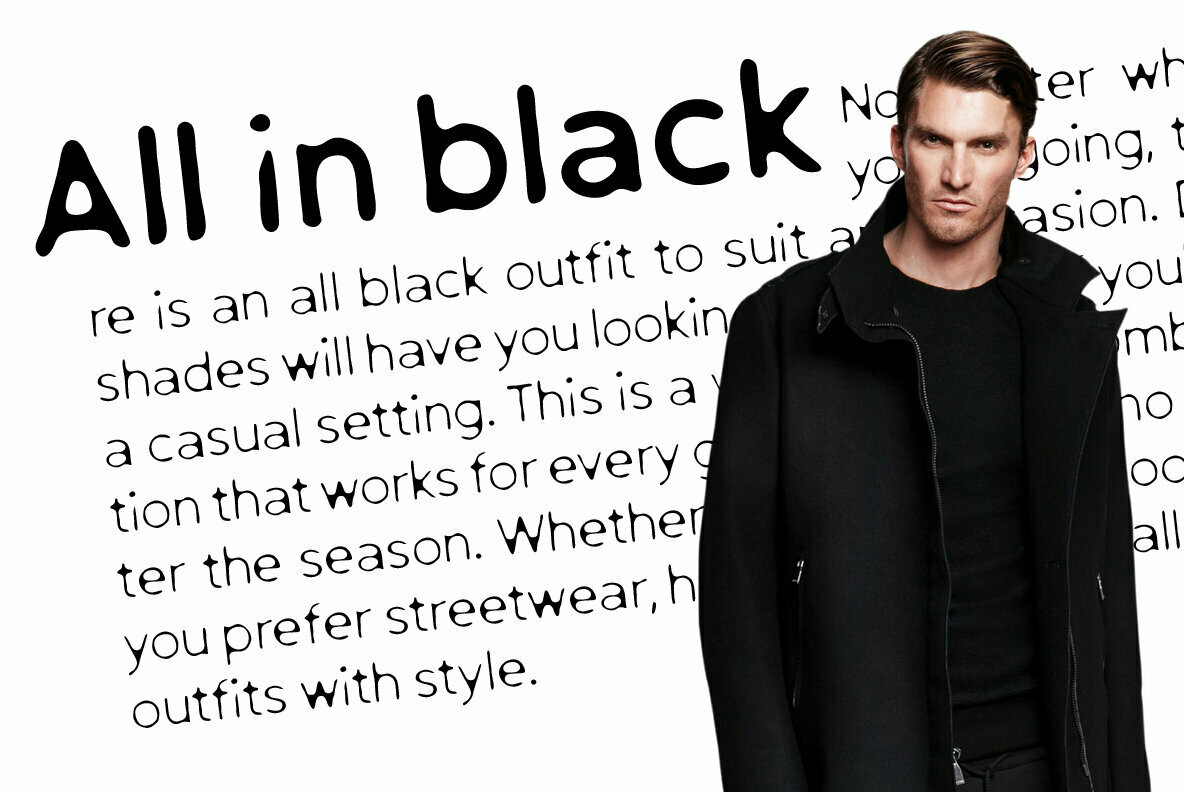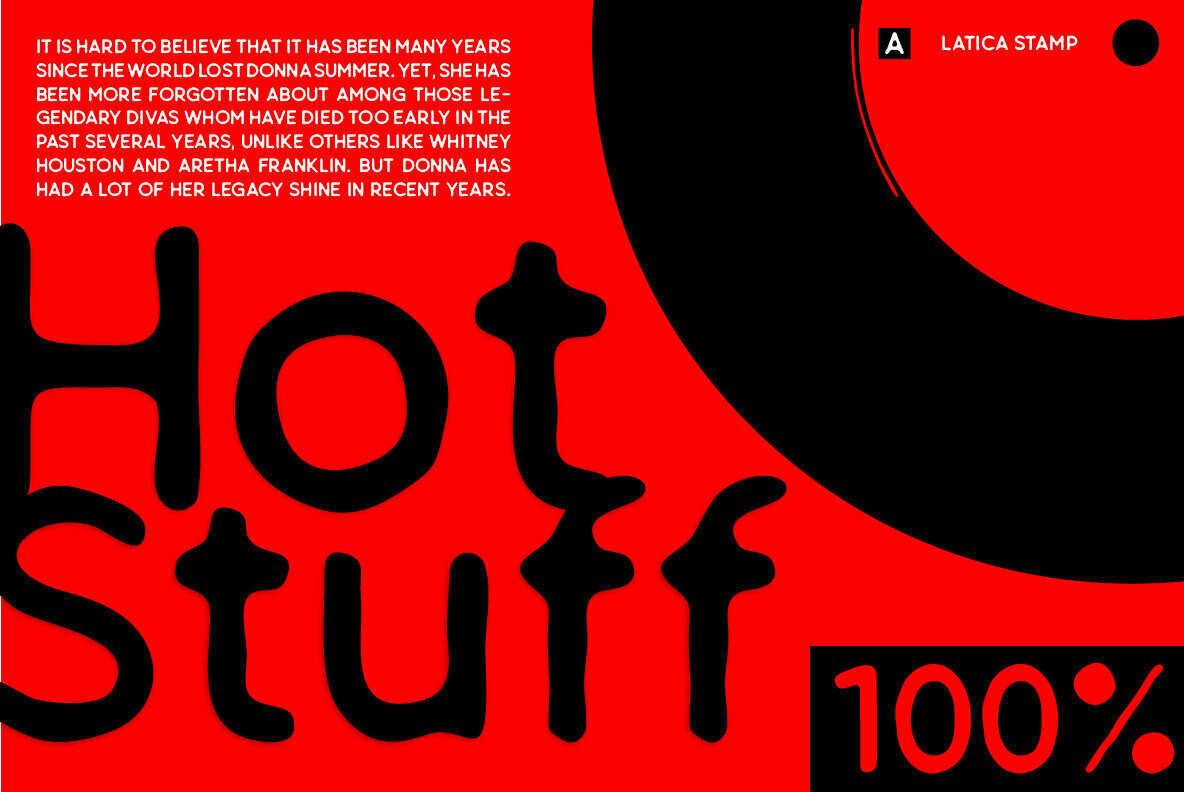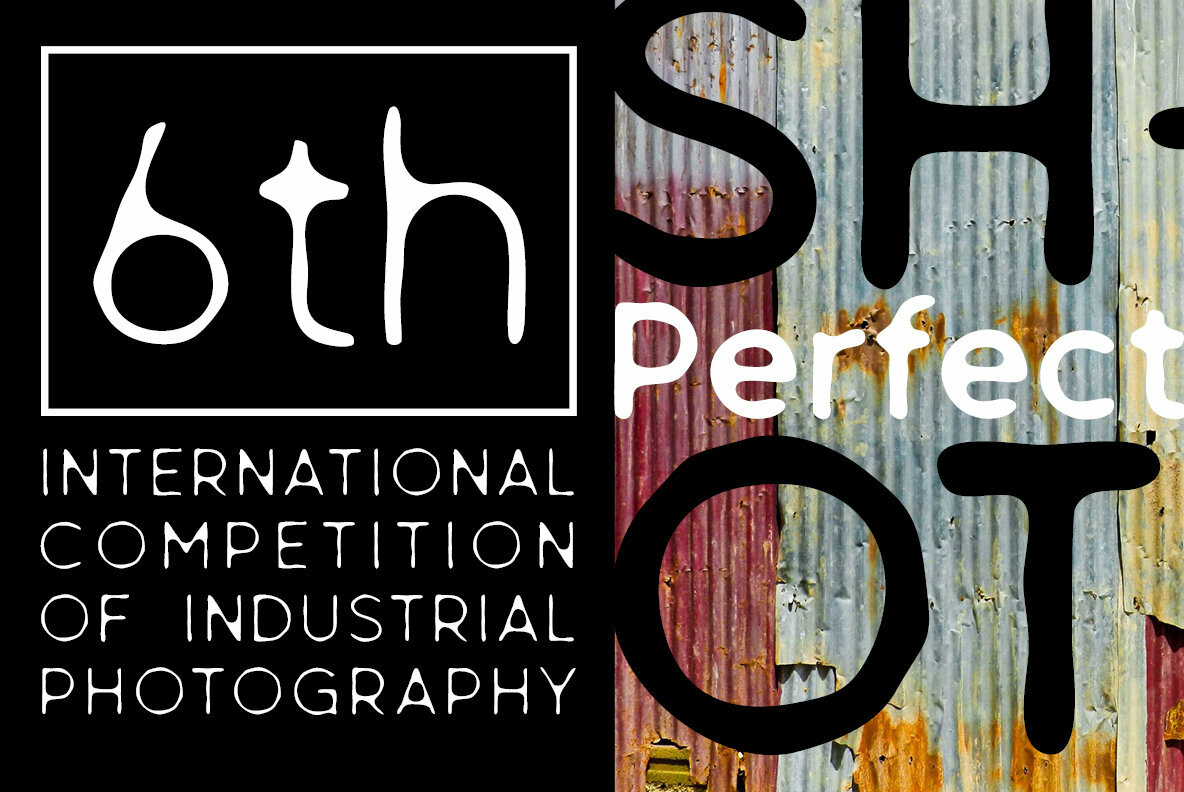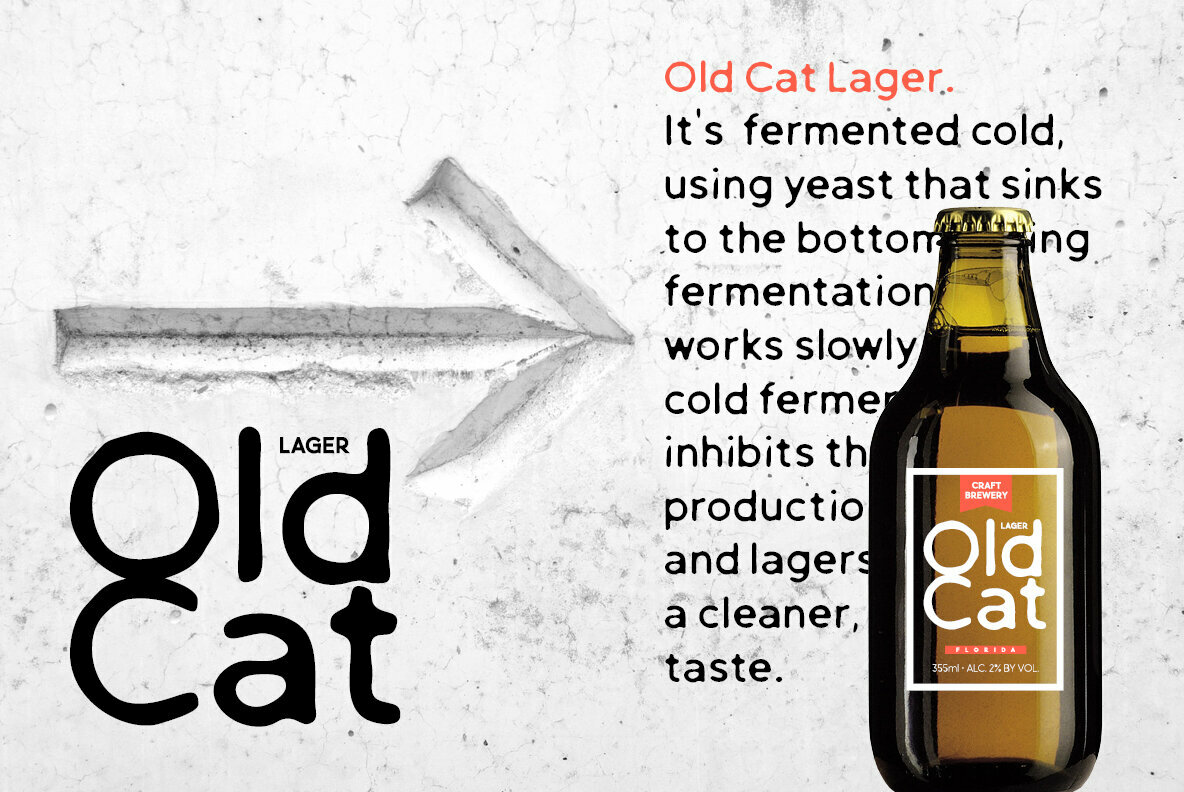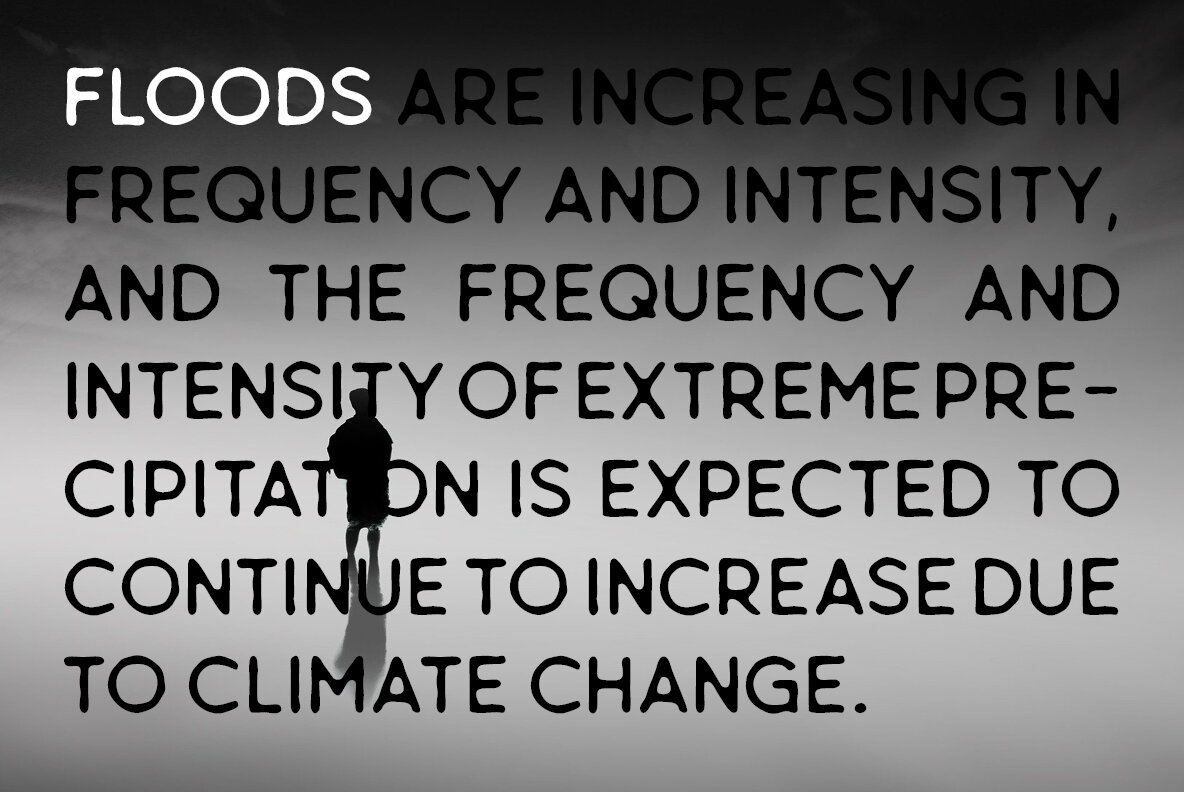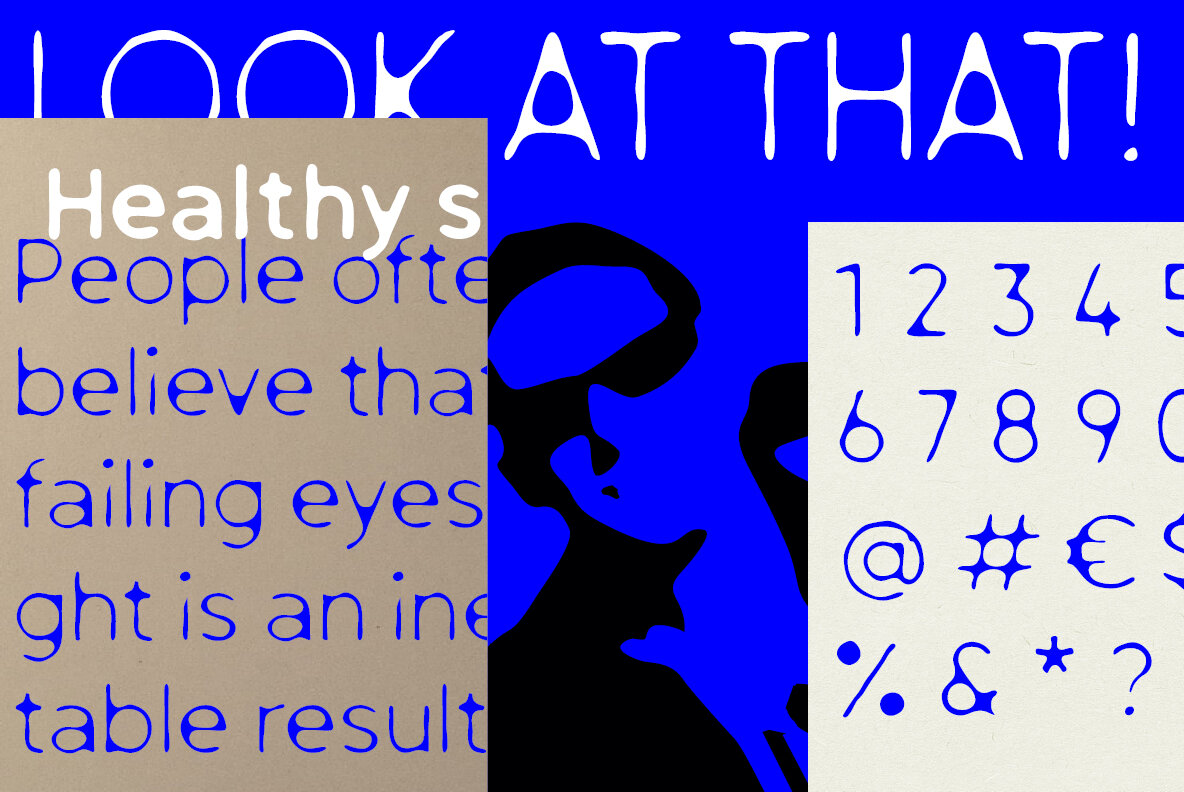
Latica Stamp Font
Latica Stamp is a rounded, sans serif and display font, imitating stamped writing, with deformed lines. Body text looks clear and legible, but the best use is where there is a need to escape from the clichéd, classic sharp font. It works well for bold projects, posters, billboards, press advertisements, websites, packaging. It provides multilingual support.